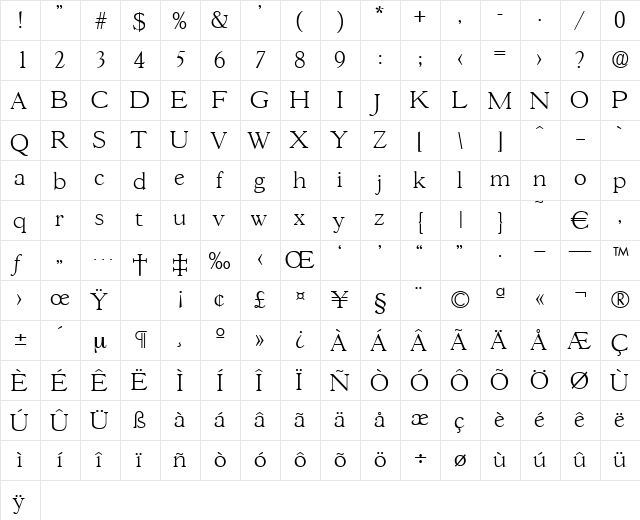
Gascogne-Xlight Regular
Design Context for Gascogne-Xlight Typeface
Gascogne-Xlight is a composed and adaptable typeface that performs quietly and consistently across a wide range of design contexts. Its slender proportions lend an understated elegance to any composition.